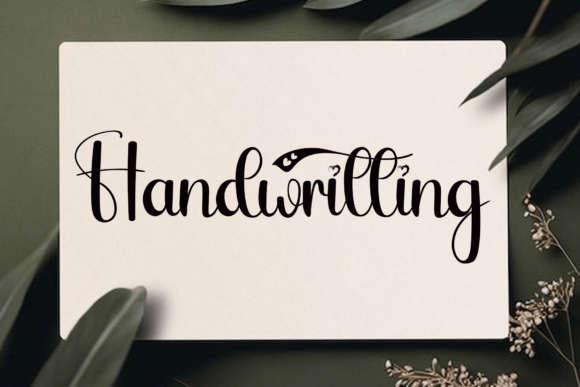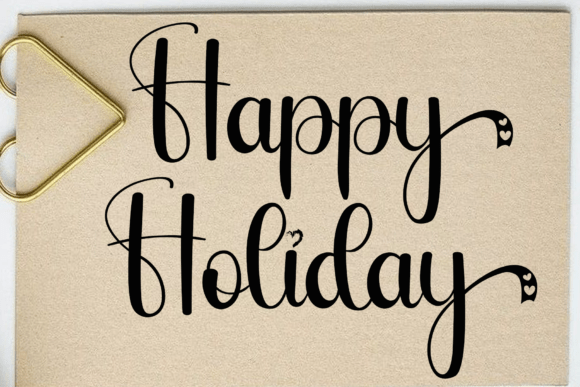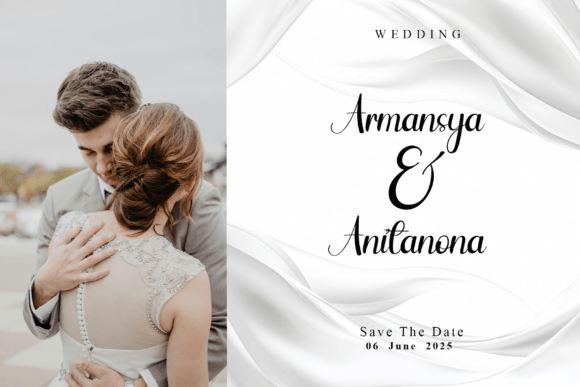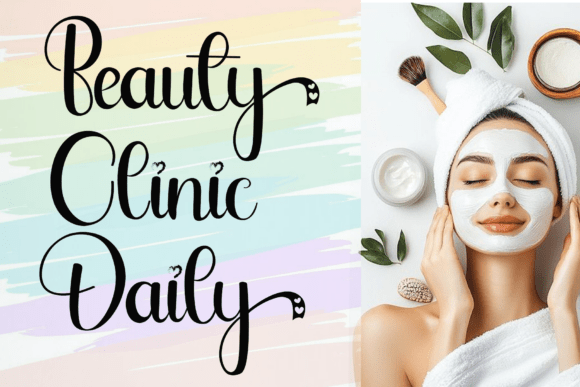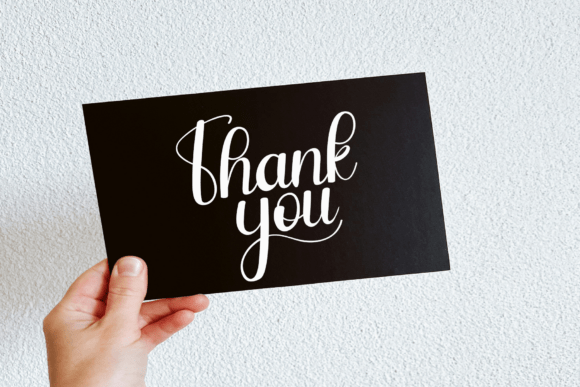
Daisy Font: Elevate Your Designs with a Cool, Simple, and Playful Handwritten Style
Are you tired of using the same old fonts in your designs? Look no further than the Daisy Font, a cool, simple, and playful handwritten font that’s sure to take your creative projects to the next level. With its incredibly versatile design, Daisy Font fits a wide pool of designs, making it the perfect addition to your font collection.
The Charm of Daisy Font
Daisy Font is a beautifully crafted handwritten font that’s perfect for designers and crafters looking for a unique and eye-catching style. Its playful and simple design makes it ideal for a wide range of projects, from creative crafts to digital designs. Whether you’re working on a logo, brochure, or social media graphic, Daisy Font is sure to add a touch of personality and whimsy to your work.
Key Features of Daisy Font
- Handwritten Style: Daisy Font features a beautiful, handwritten design that’s perfect for adding a personal touch to your projects.
- Simple and Playful: The font’s simple and playful design makes it easy to read and fun to use.
- Incredibly Versatile: Daisy Font fits a wide pool of designs, making it perfect for a variety of projects and applications.
Uses for Daisy Font
Daisy Font is incredibly versatile, making it perfect for a wide range of projects and applications. Here are just a few ideas to get you started:
- Logos and Branding: Use Daisy Font to create a unique and eye-catching logo that’s sure to stand out.
- Social Media Graphics: Add a touch of personality to your social media graphics with Daisy Font.
- Brochures and Flyers: Use Daisy Font to create eye-catching brochures and flyers that are sure to grab attention.
- Crafting and Scrapbooking: Daisy Font is perfect for crafters and scrapbookers looking to add a personal touch to their projects.
Why Choose Daisy Font?
So why choose Daisy Font over other fonts? Here are just a few reasons:
- Unique and Eye-Catching: Daisy Font is a unique and eye-catching font that’s sure to stand out in a crowd.
- Incredibly Versatile: Daisy Font fits a wide pool of designs, making it perfect for a variety of projects and applications.
In conclusion, Daisy Font is a cool, simple, and playful handwritten font that’s perfect for designers and crafters looking to elevate their designs to the highest levels. With its incredibly versatile design and easy-to-use format, Daisy Font is sure to become a favorite in your font collection. So why wait? Add Daisy Font to your favorite creative ideas and notice how it makes them come alive!